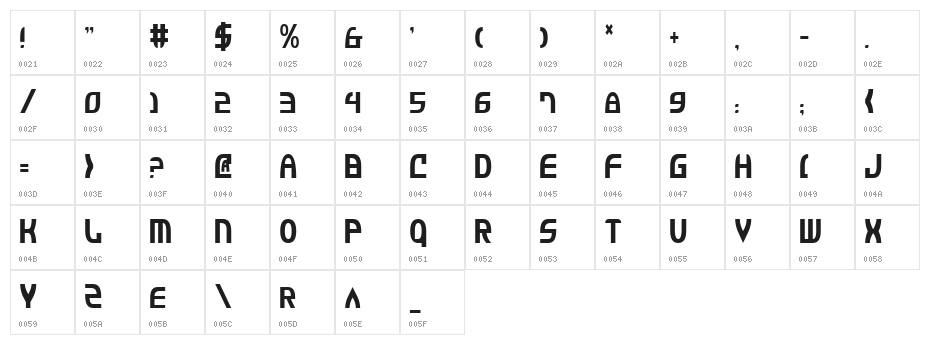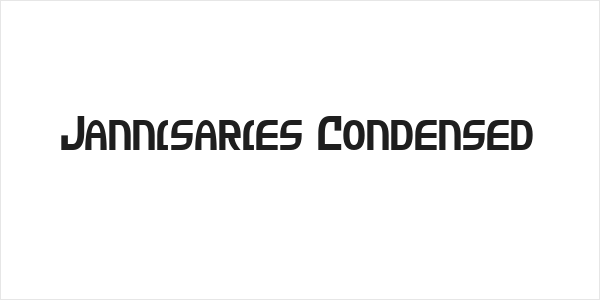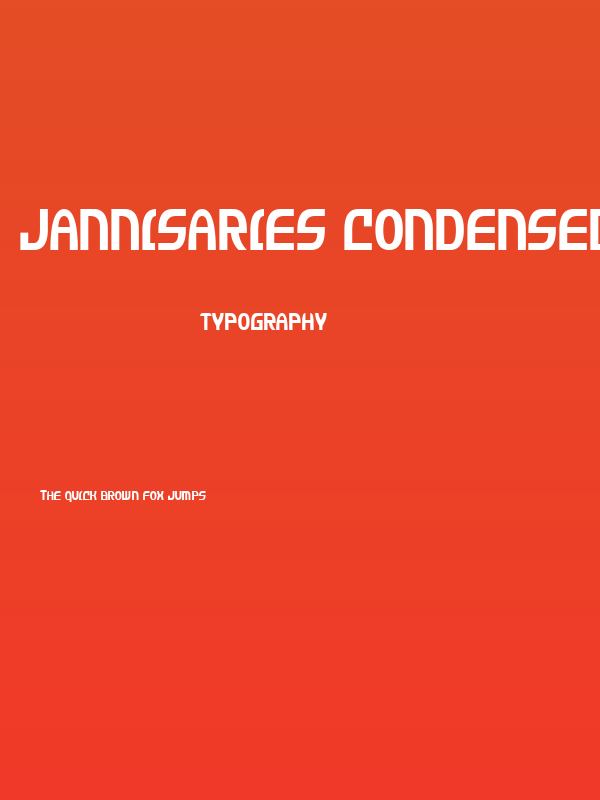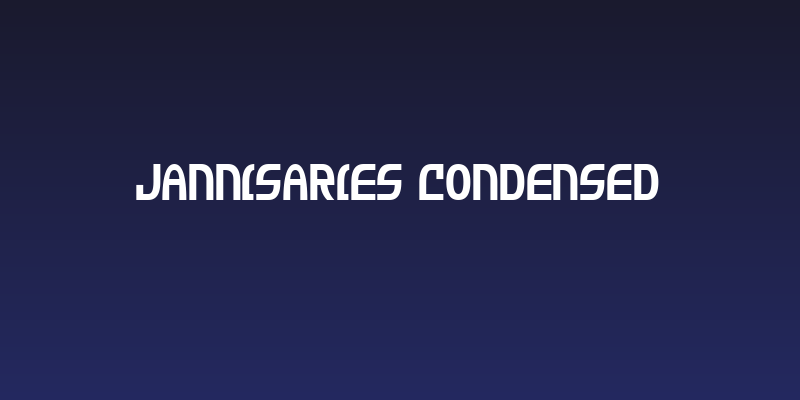
Jannisaries Condensed Font
Jannisaries Condensed Description
This font features a bold and condensed style with a modern, geometric design. The characters are uniform in width, creating a cohesive and structured appearance. The uppercase letters have a strong presence, while the lowercase letters maintain the same boldness, ensuring readability and impact. The numbers are distinct and align well with the overall style, making them suitable for various applications. Special characters are included, maintaining the same bold and geometric aesthetic. The font's condensed nature makes it ideal for space-saving designs without sacrificing legibility.
| Proposed Projects | Ideal for branding, posters, headlines, and any design requiring a bold statement. |